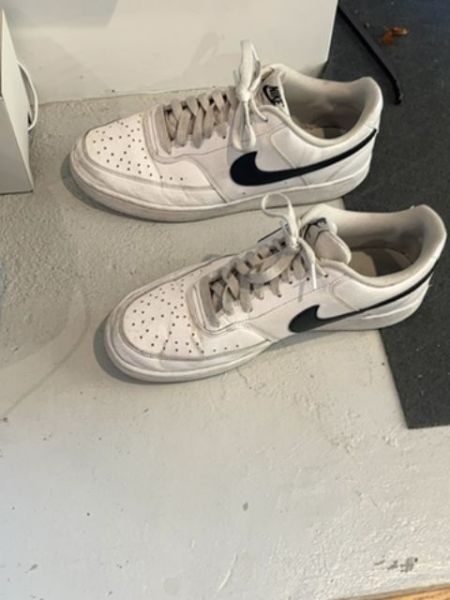
Nike Sneakers
These are athletic shoes designed for sports and casual wear, providing support and comfort for various activities.
The typography on the shoe features a bold sans-serif font that is both modern and easily recognizable. The font style complements the sporty and dynamic brand identity of Nike.
The shoes are presented without additional packaging, showcasing their sleek design and iconic swoosh logo. The use of a black swoosh on a white background emphasizes brand recognition and simplicity.
- Nike is a globally recognized sports brand.
- The swoosh logo is one of the most iconic and recognized in the world.
- Nike sneakers are popular for both athletic and casual wear.